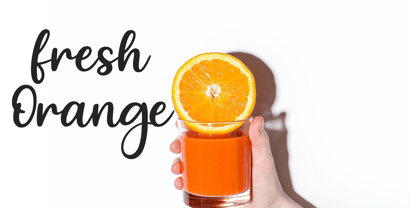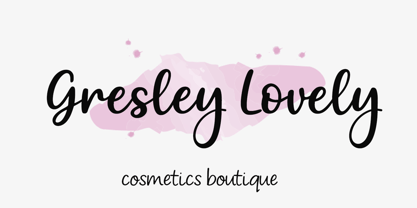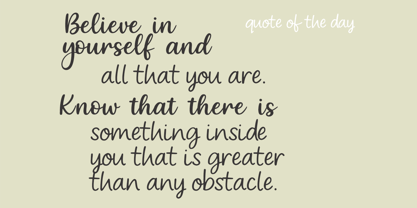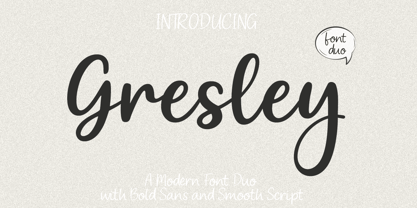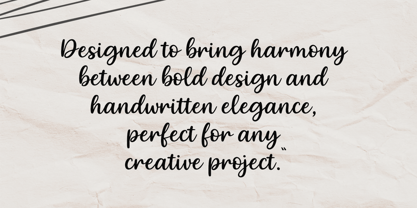
Gresley Script
by Cocodesign
The Gresley Script Font Family was designed by Muhammad Zaini and published by Cocodesign. Gresley Script contains 3 styles and family package options.
Gresley – A Modern Font Duo Gresley is a modern and versatile font duo that blends bold sans design with smooth handwritten script. The combination creates a balanced contrast between strength and elegance, suitable for a wide range of design applications. The sans typeface provides clarity and structure for titles and headlines, while the script version offers a natural, flowing rhythm that enhances visual harmony. Together, they form a timeless duo crafted for modern creative work.